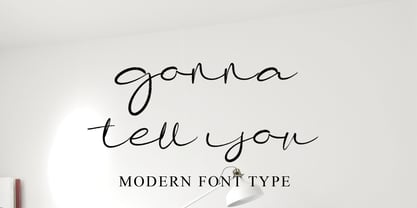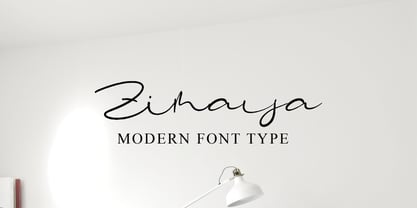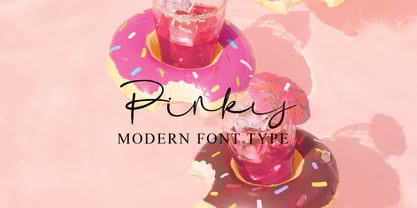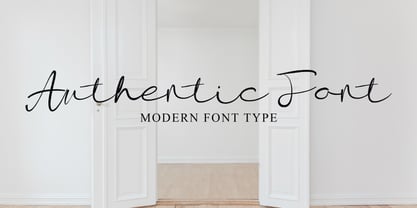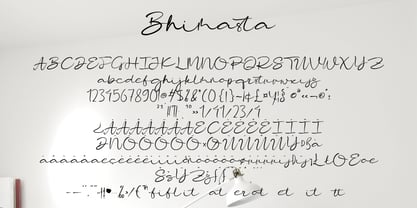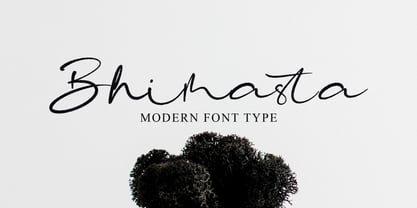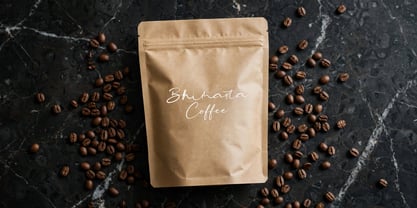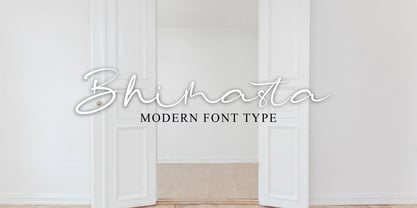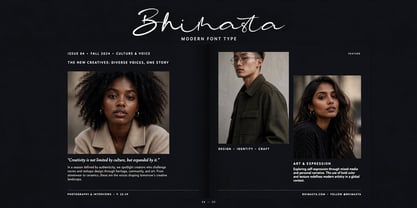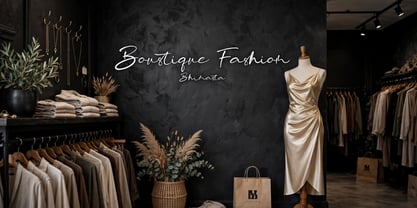
Bhimasta
by Ayska
The Bhimasta Font Family was designed by Dhoni Trihatmoko and published by Ayska. Bhimasta contains 1 styles. More about this family
Immerse yourself in the mesmerizing charm of Bhimasta, a captivating modern calligraphy typeface. This striking font carries an aura of elegance, each hand-rendered stroke adding a touch of refinement to every creation. Be it a personal greeting card, a business identity card, or an impactful branding material, Bhimasta elevates each with its charismatic flourishes and sophisticated curves.
Tailor-made to breath life into wedding postcards, Bhimasta transforms each sentiment into an artistic masterpiece. The versatility of this typeface unfolds beautifully in a myriad of applications, adding a remarkable touch to logos, stationery, blog posts, and marketing paraphernalia. It marks its presence notably in print media, such as magazines, becoming a perfect tool for typographic innovation.
By choosing Bhimasta, you get blessed with the power to create singular designs that outshine the ordinary. Let Bhimasta guide you through a journey of transforming your creative ideas into visually resplendent designs. Harness the tantalizing allure of this unique font, and paint a grand tapestry of expressive typography with Bhimasta.